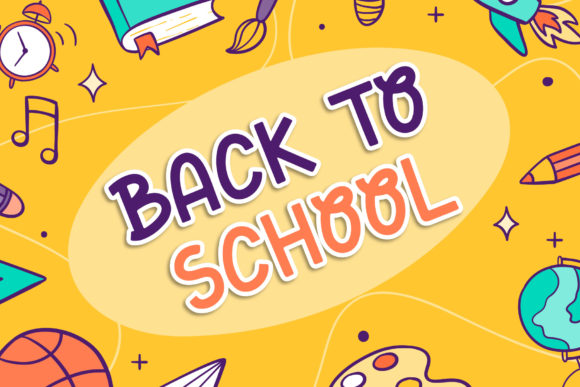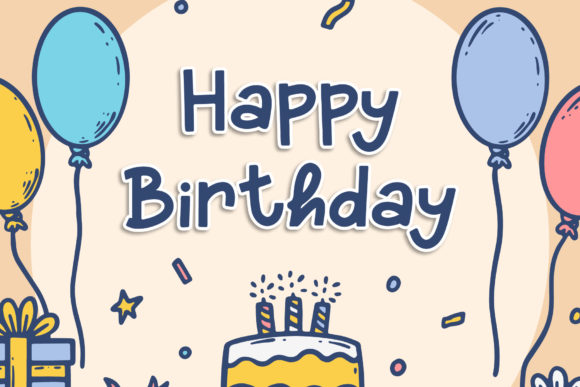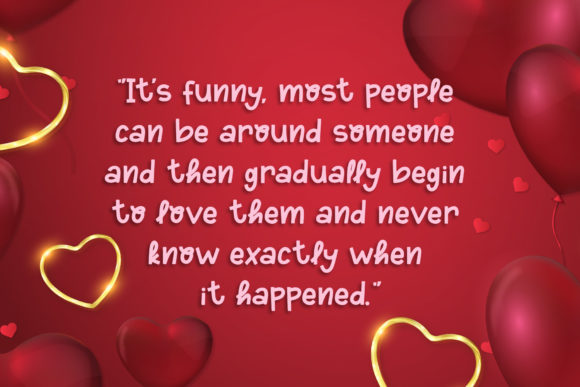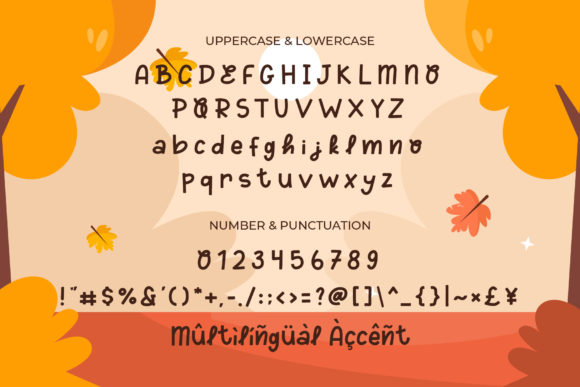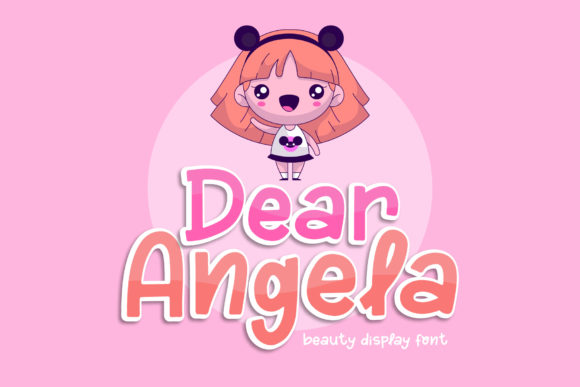
Introducing Dear Angela Font: Elevate Your Creative Projects with Elegance
Are you on the hunt for a font that can add a touch of sophistication and charm to your creative projects? Look no further than Dear Angela Font. This sweet and thick lettered display font is perfect for designers, crafters, and DIY enthusiasts looking to elevate their work. In this article, we’ll dive into the world of Dear Angela Font, exploring its features, uses, and benefits.
A Font that Stands Out
Dear Angela Font is a unique and eye-catching display font that is sure to turn heads. Its thick, bold letters exude a sense of confidence and elegance, making it perfect for a wide range of creative projects. Whether you’re designing a logo, creating social media graphics, or working on a DIY project, Dear Angela Font is sure to make a statement.
Perfect for Instagram and Social Media
In today’s digital age, having a strong online presence is crucial. With Dear Angela Font, you can create stunning social media graphics that will make your followers take notice. Its bold and playful design makes it perfect for Instagram posts, Facebook graphics, and more. Use it to create eye-catching captions, quotes, or announcements that will elevate your online presence.
Calligraphy Scripts for DIY Projects
Dear Angela Font is not just limited to digital use. Its beautiful, handwritten design makes it perfect for DIY projects such as scrapbooking, card making, and journaling. Add a touch of elegance to your handmade creations with this gorgeous font. Use it to create stunning calligraphy scripts, quotes, or phrases that will make your DIY projects stand out.
- Unique and eye-catching design: Dear Angela Font features a sweet and thick lettered design that is sure to turn heads.
- Versatile: Use it for a wide range of creative projects, from social media graphics to DIY projects.
- Elegant and sophisticated: Add a touch of elegance to your work with this beautiful font.
- Mix and match: Pair Dear Angela Font with other fonts to create a unique and eye-catching design.
- Experiment with colors: Try out different colors and textures to add depth and interest to your design.
- Use it for quotes and phrases: Dear Angela Font is perfect for creating stunning quote and phrase graphics.
Dear Angela Font is a beautiful and versatile font that is perfect for designers, crafters, and DIY enthusiasts. Its unique and eye-catching design makes it perfect for a wide range of creative projects, from social media graphics to DIY projects. With its ease of use and elegant design, Dear Angela Font is sure to become a favorite in your font collection.